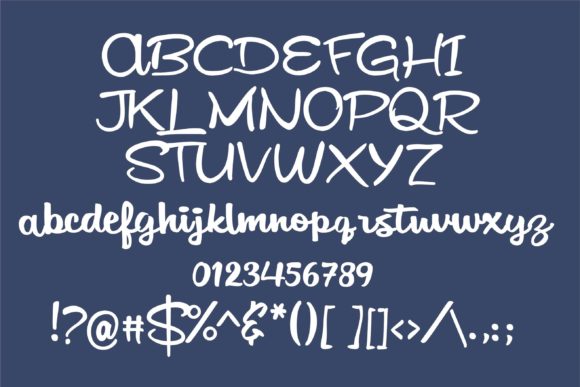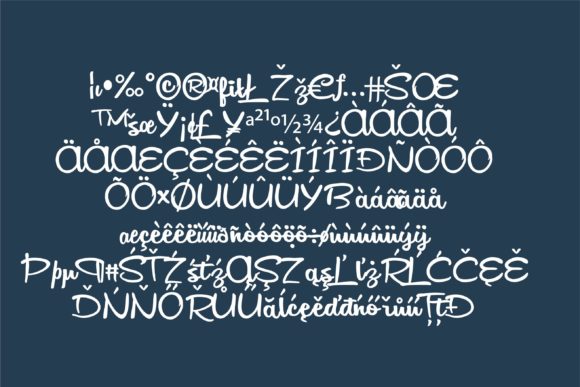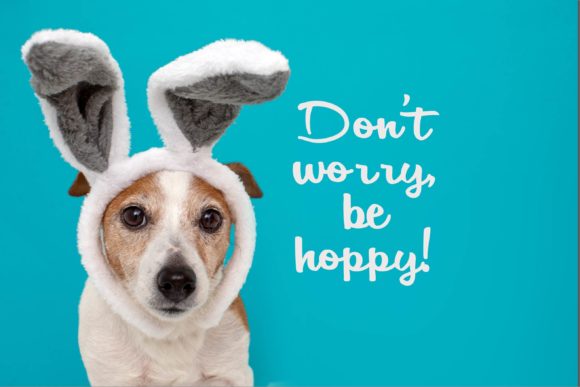
Introduction to Jackrabbit Font
This hand-crafted typeface is a thick handwritten font with a casual feel.
It’s perfect for creative projects that need a friendly and fresh look .
Jackrabbit Font offers exceptional quality and versatility, making it a valuable addition to your design toolkit. Whether you’re creating for personal projects or commercial use, Jackrabbit Font delivers professional results.